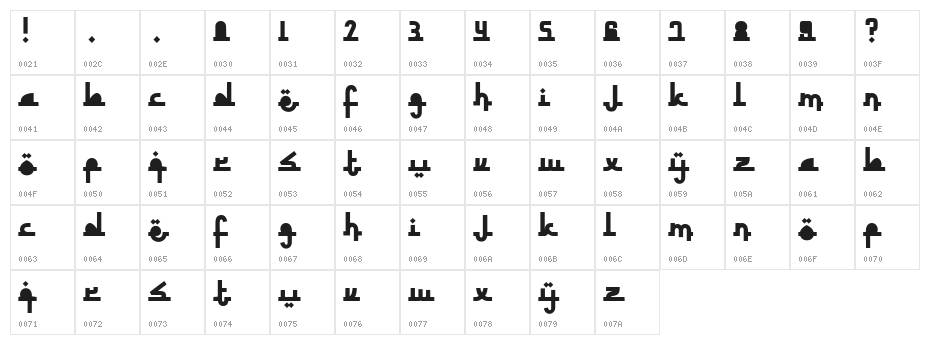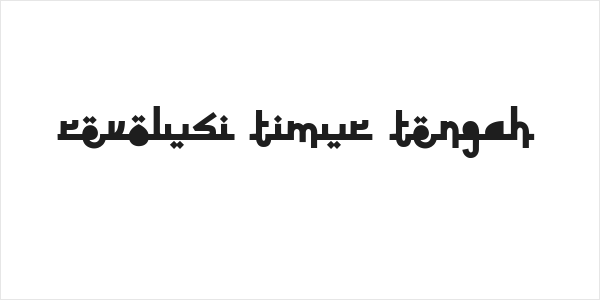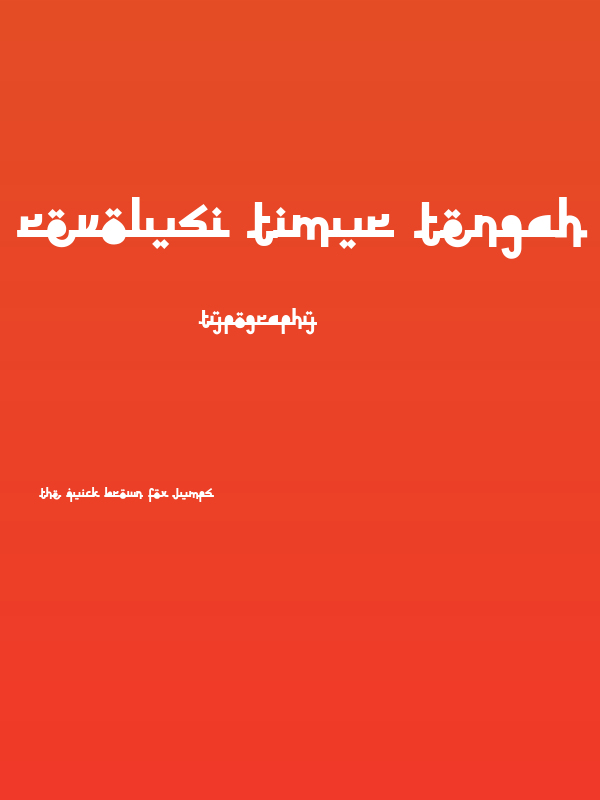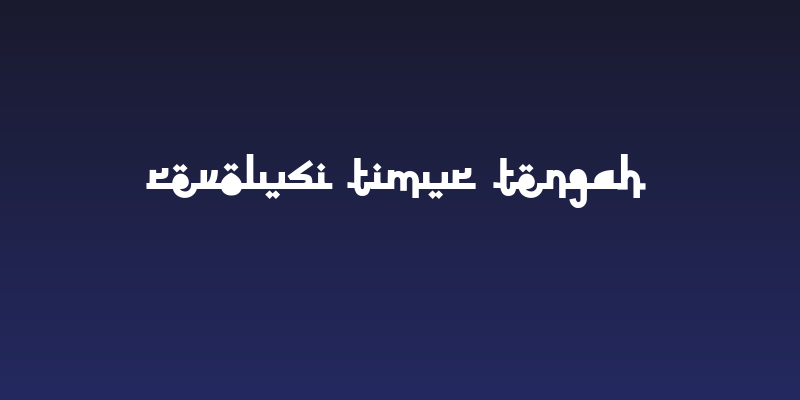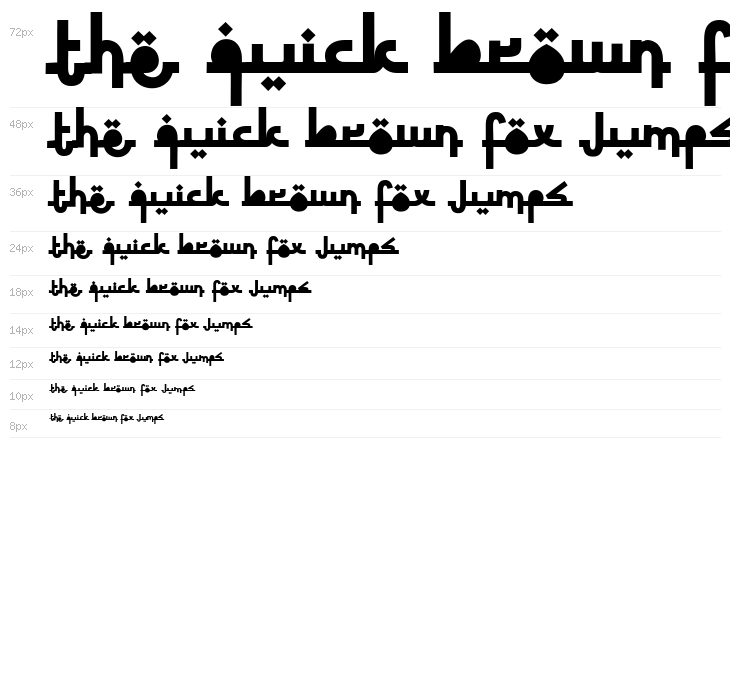
Revolusi Timur Tengah Font
Revolusi Timur Tengah Description
This font features a bold and geometric design with a strong presence. The characters are constructed with thick, uniform strokes that create a sense of stability and modernity. The font exhibits a monospaced appearance, with each character occupying the same amount of horizontal space, which contributes to its orderly and structured look. The rounded edges soften the overall appearance, adding a touch of friendliness to the otherwise robust design. The numerals and punctuation marks are consistent with the font's geometric style, maintaining the same thickness and spacing as the letters. This font is well-suited for projects that require a modern and bold aesthetic.